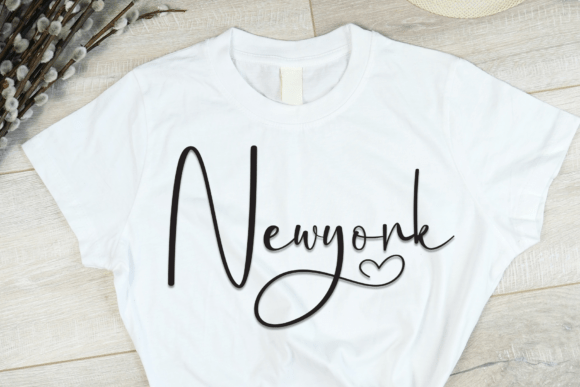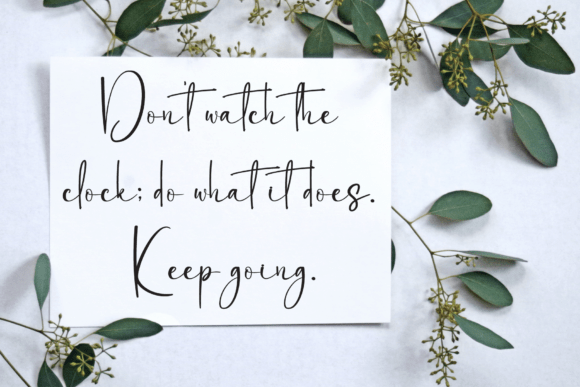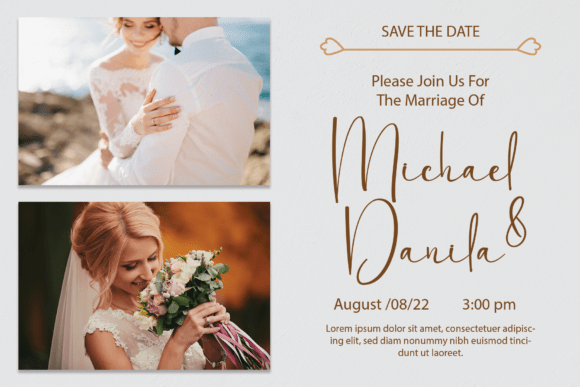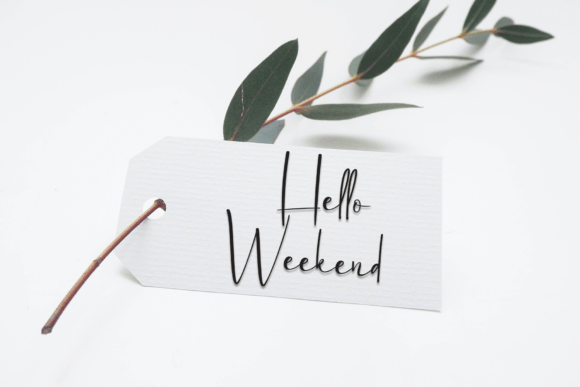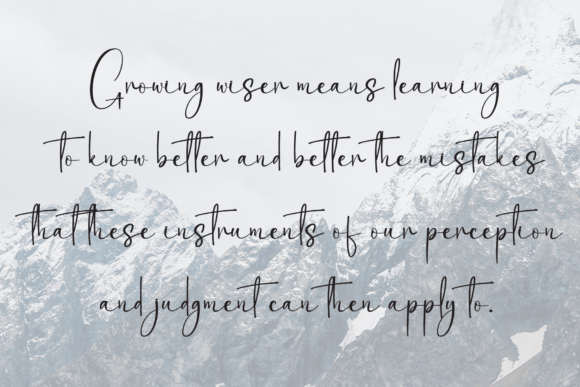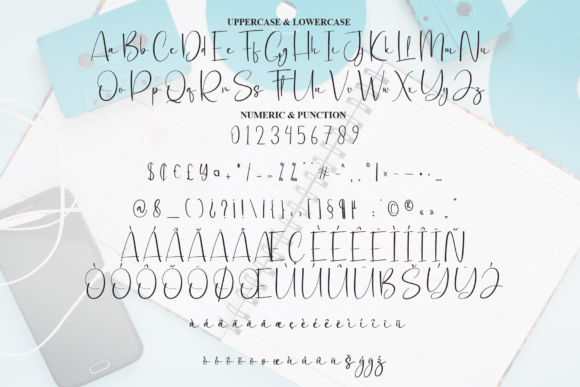
Introducing Autography Font: Elevate Your Designs with Elegance and Modern Flair
In the world of typography, few fonts manage to strike a balance between elegance and modernity. Autography, a stylish handwritten script font, is one such exceptional typeface that brings a unique blend of sophistication and charm to any design project. With its flowing strokes and organic curves, Autography adds a personal, refined touch to branding, invitations, social media, and more, making it an indispensable asset for designers and crafters alike.
The Essence of Autography
Autography is more than just a font; it’s an expression of style and personality. Its design is rooted in the elegance of handwritten scripts, yet it carries a modern flair that sets it apart from traditional typefaces. This blend of classic and contemporary elements makes Autography versatile and suitable for a wide range of applications, from luxury branding to digital content creation.
Key Features of Autography
- Flowing Strokes and Organic Curves: Autography’s most distinctive feature is its fluid, natural look. The font’s strokes and curves mimic the spontaneity of handwriting, bringing a sense of authenticity and warmth to any text.
- Elegance and Modernity: The font strikes a perfect balance between elegance and modernity. Its refined appearance makes it suitable for high-end branding and luxury products, while its contemporary edge keeps it relevant for modern digital platforms.
- Versatility: Autography is incredibly versatile. It can be used for a variety of projects, including logos, invitations, social media posts, and website headings. Its adaptability makes it a valuable addition to any designer’s toolkit.
- Effortless Charm: One of the standout qualities of Autography is its ability to add an effortless charm to any design. It brings a personal touch that resonates with audiences and sets your work apart from the generic and mundane.
Applications of Autography
Autography’s unique characteristics make it ideal for a variety of design applications:
- Branding: Use Autography to create memorable logos and brand identities that exude elegance and sophistication.
- Invitations: Add a touch of luxury to your event invitations, making them truly special and inviting.
- Social Media: Elevate your social media content with stylish headings and quotes that capture attention and convey your message with flair.
- Web Design: Enhance your website’s aesthetic with Autography, used for headings or as a decorative element to draw attention.
Tips for Using Autography
To maximize the impact of Autography in your designs, consider the following tips:
- Pair with Complementary Fonts: Combine Autography with clean, sans-serif fonts for body text to create a harmonious contrast.
- Adjust Letter Spacing: For a more natural look, adjust the letter spacing to match the flow of handwriting.
- Experiment with Colors: While Autography looks stunning in black or dark colors, don’t hesitate to experiment with soft pastels or rich jewel tones to add an extra layer of elegance.
Autography is a stylish handwritten script font that brings a perfect blend of elegance and modernity to the world of typography. Its flowing strokes, organic curves, and effortless charm make it an excellent choice for designers and crafters looking to add a personal, refined touch to their projects. Whether you’re working on branding, invitations, social media content, or web design, Autography is sure to elevate your work and leave a lasting impression on your audience.